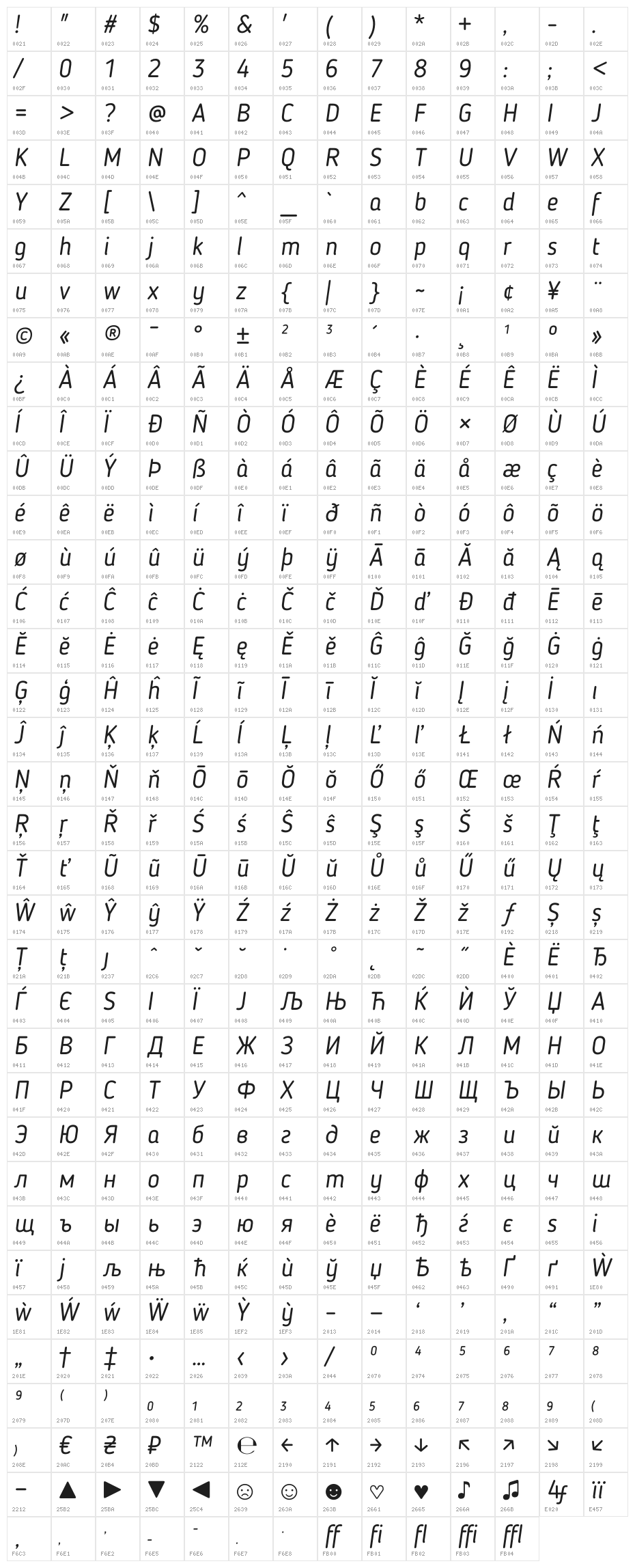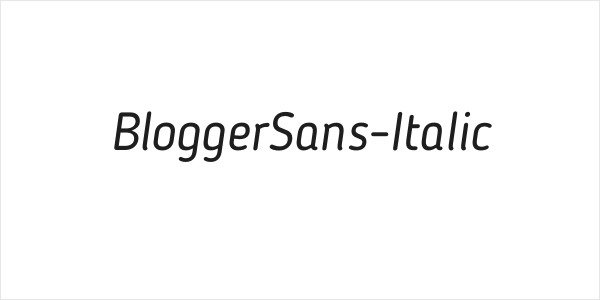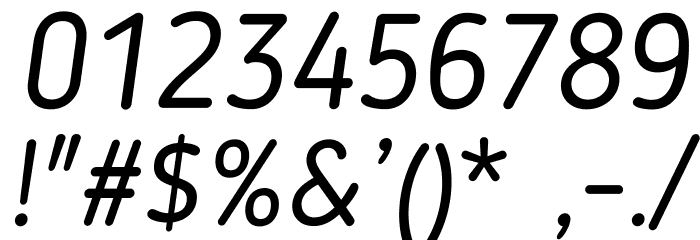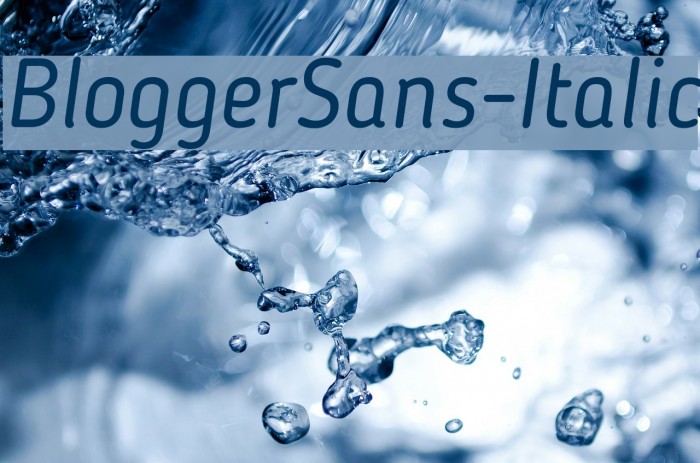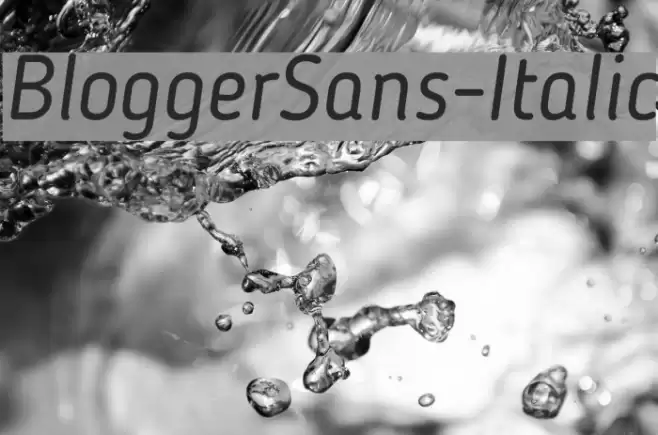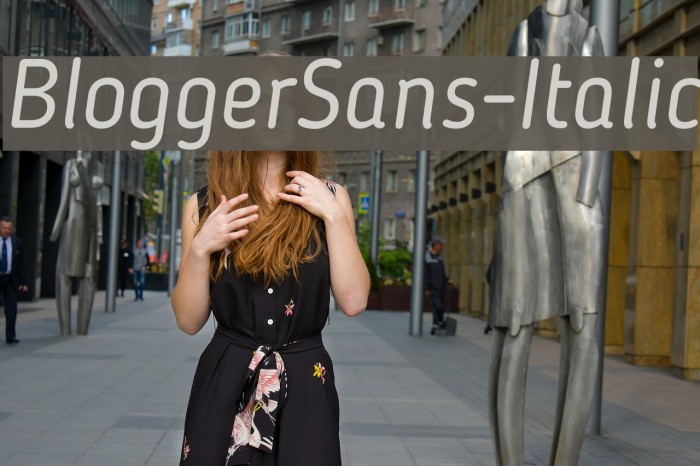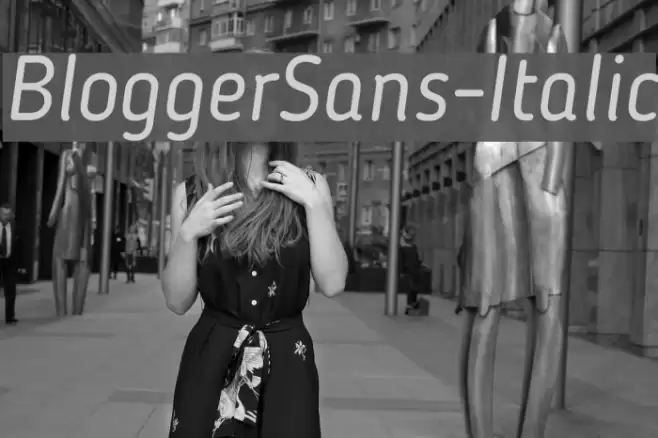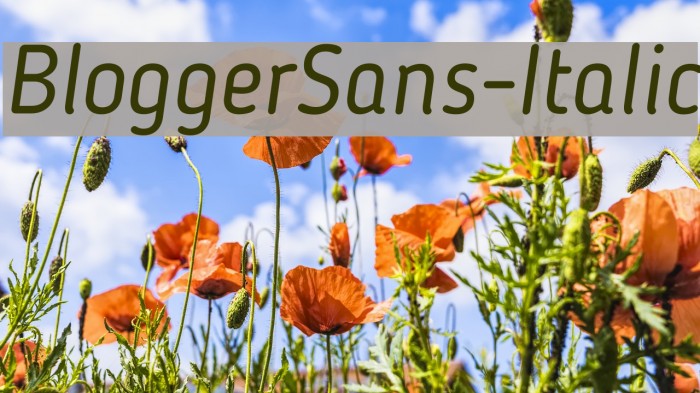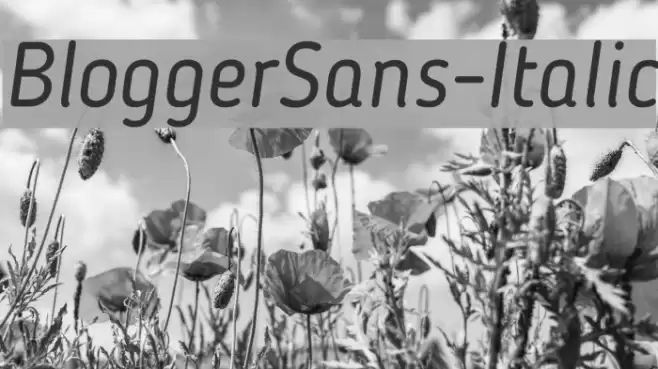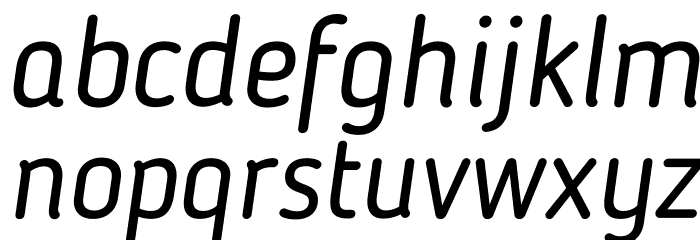
BloggerSans-Italic Font
BloggerSans-Italic Description
This font features a sleek, modern design with a slight slant, giving it an italicized appearance. The characters are clean and rounded, contributing to a friendly and approachable aesthetic. The uppercase and lowercase letters maintain a consistent style, with smooth curves and a uniform stroke width. The numerals are clear and easy to read, matching the overall style of the alphabet. Special characters are well-integrated, maintaining the font's cohesive look. The font's design is versatile, making it suitable for various applications where a contemporary and professional look is desired.